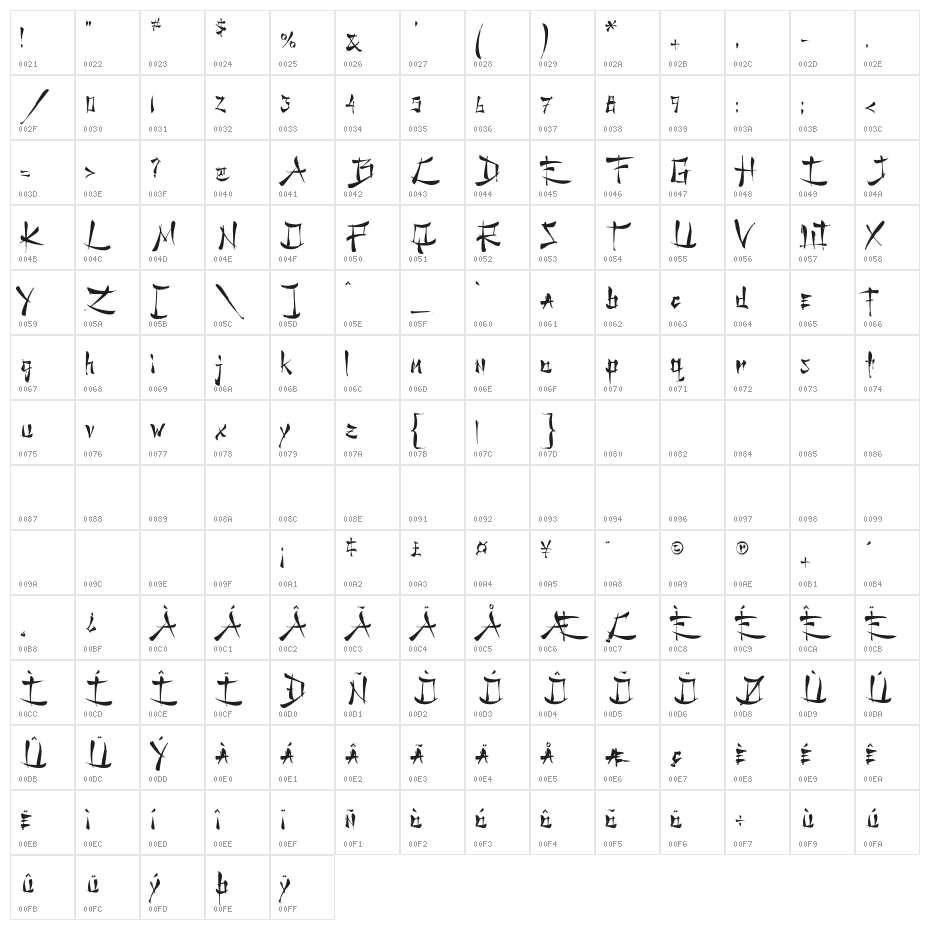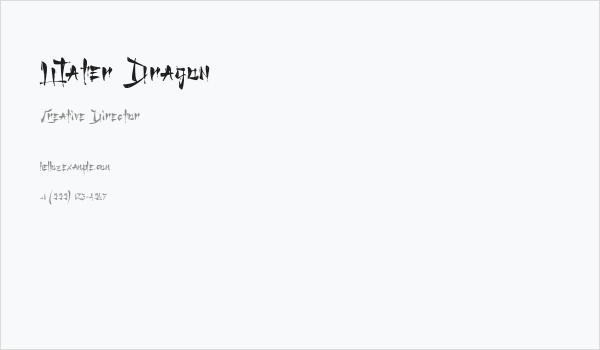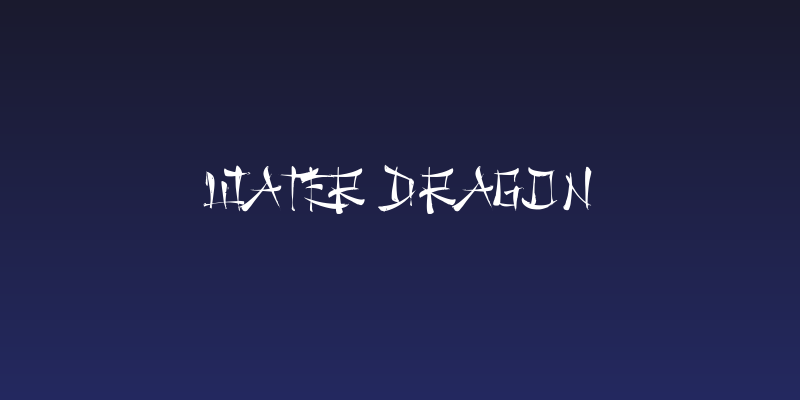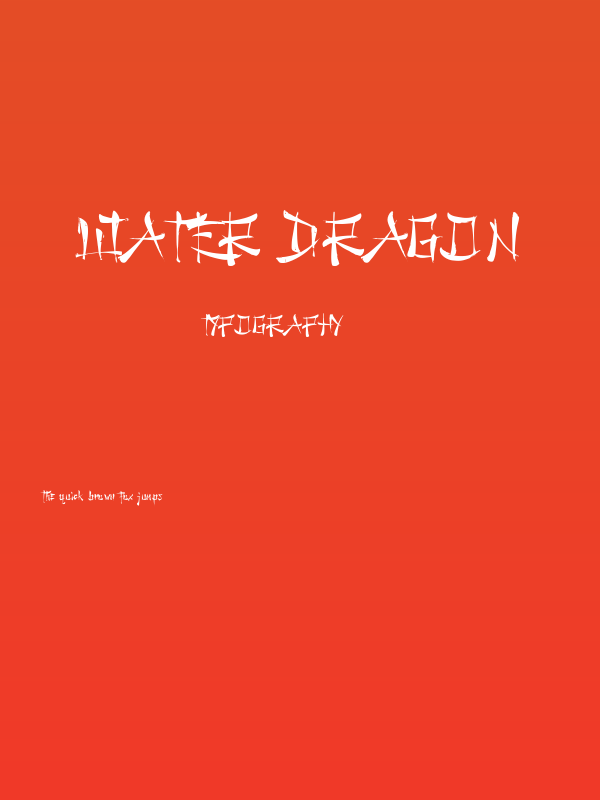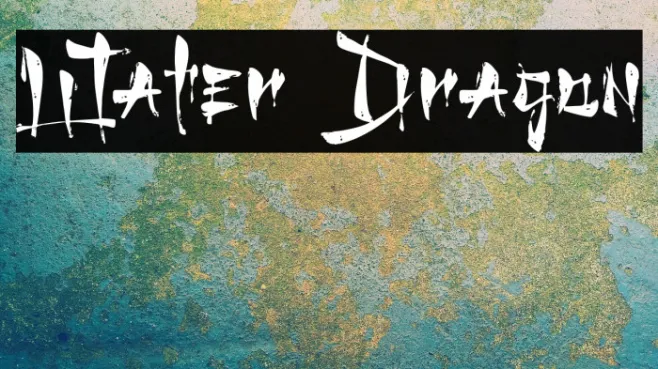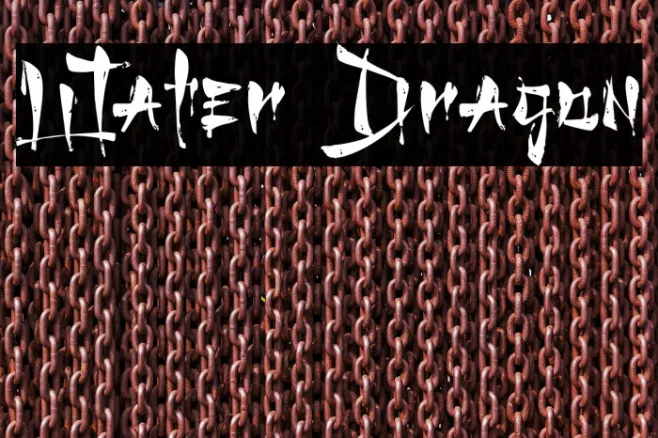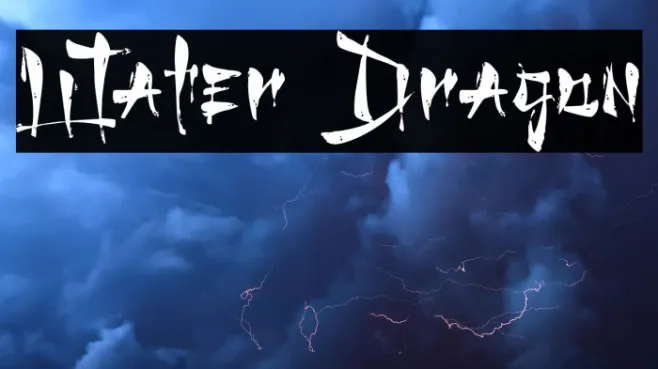
Water Dragon Font
Water Dragon Description
This font exudes a dynamic and energetic style, reminiscent of brush strokes with a slightly chaotic yet artistic flair. The characters are bold and expressive, with varying stroke widths that create a sense of movement and fluidity. The uppercase letters are particularly striking, with sharp angles and unique forms that draw attention. The lowercase letters maintain the same energetic style but are slightly more subdued, providing a nice balance. Numbers and special characters are equally expressive, ensuring consistency across all elements. This font is perfect for projects that require a bold statement and a touch of artistic rebellion.
| Overall Style | Modern, Artistic |
| Use Case | Headlines, Logos, Artistic projects |
| Proposed Projects | Ideal for album covers, posters, graffiti art, and any project needing a bold, artistic touch. |